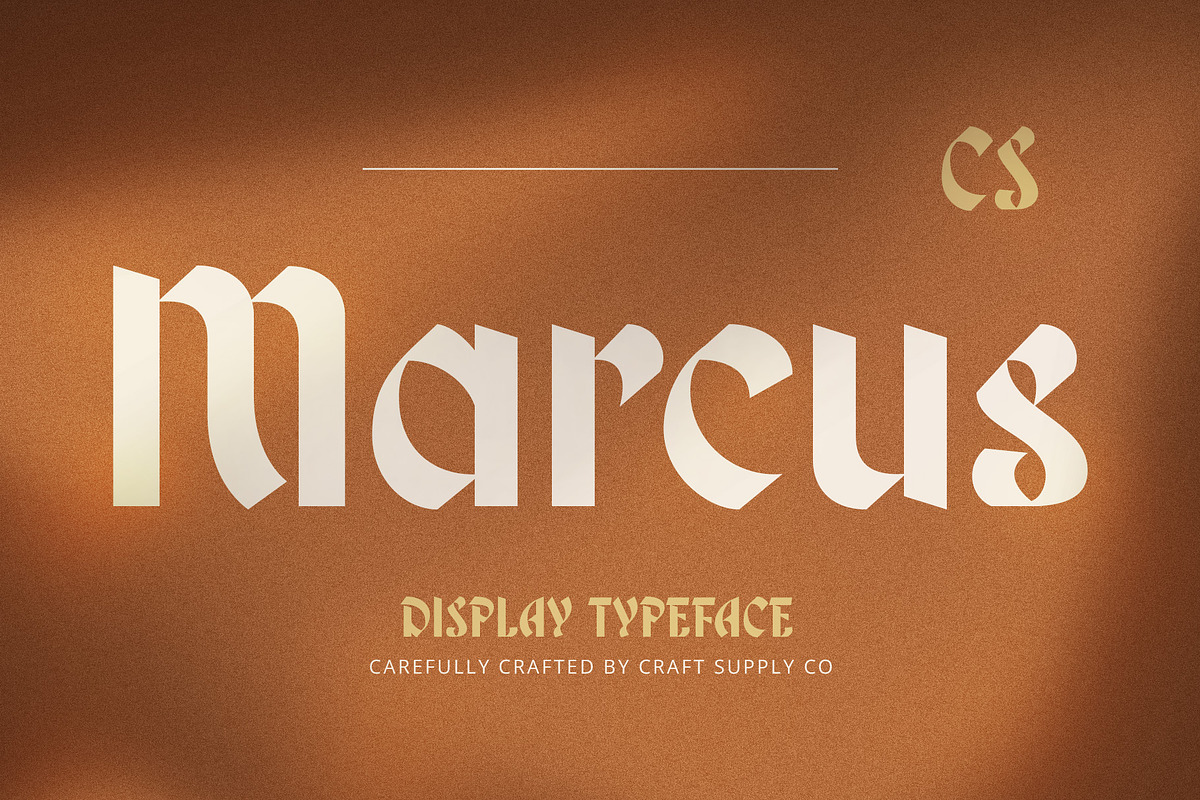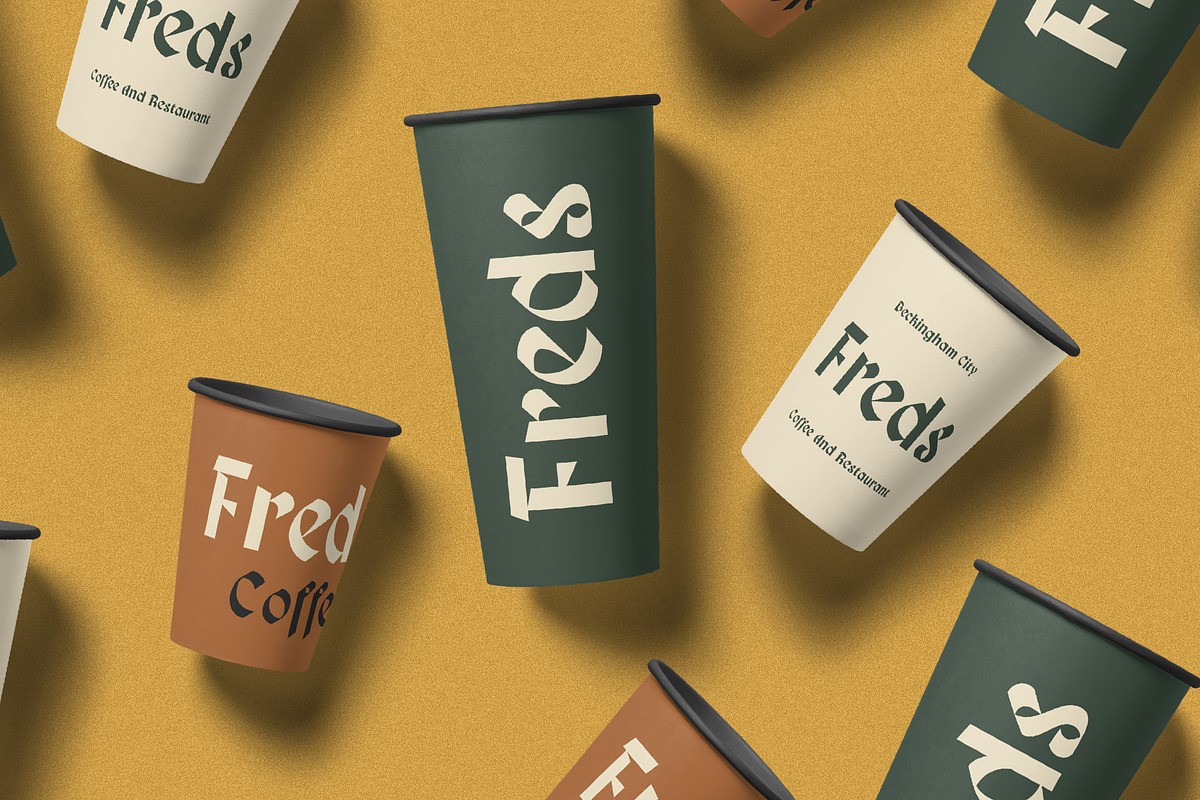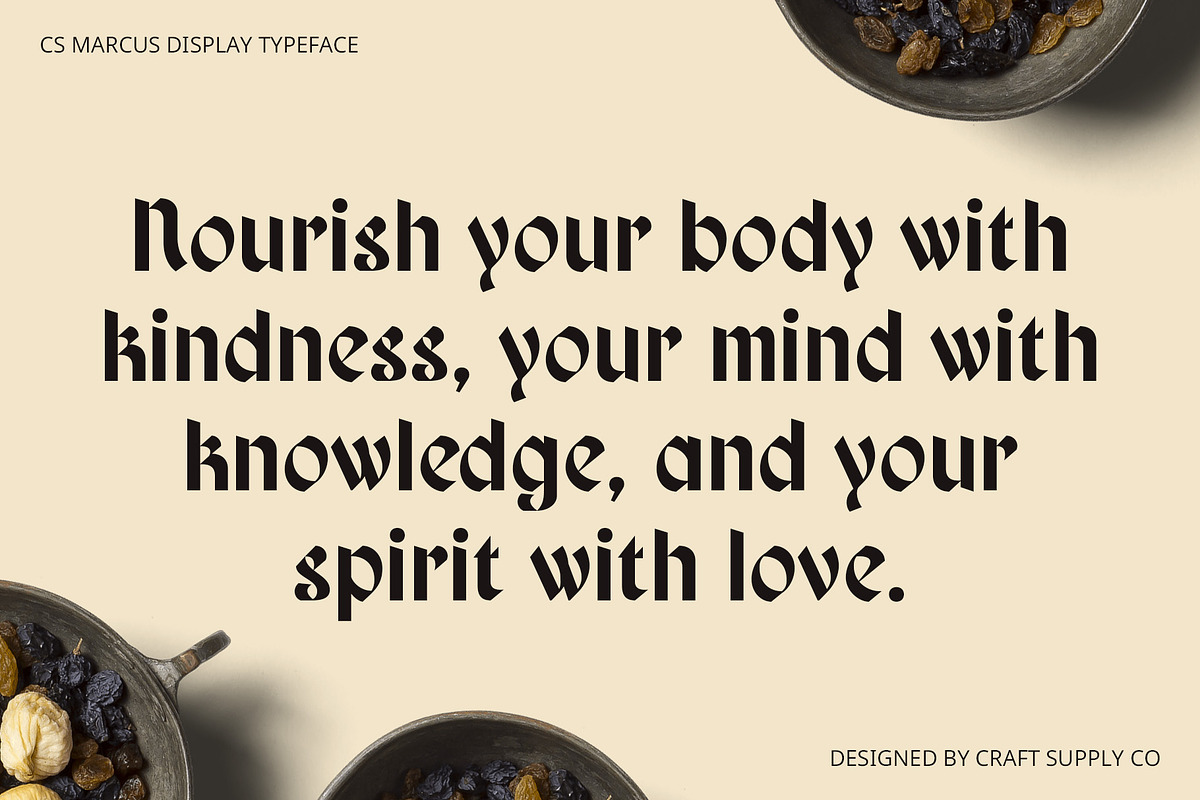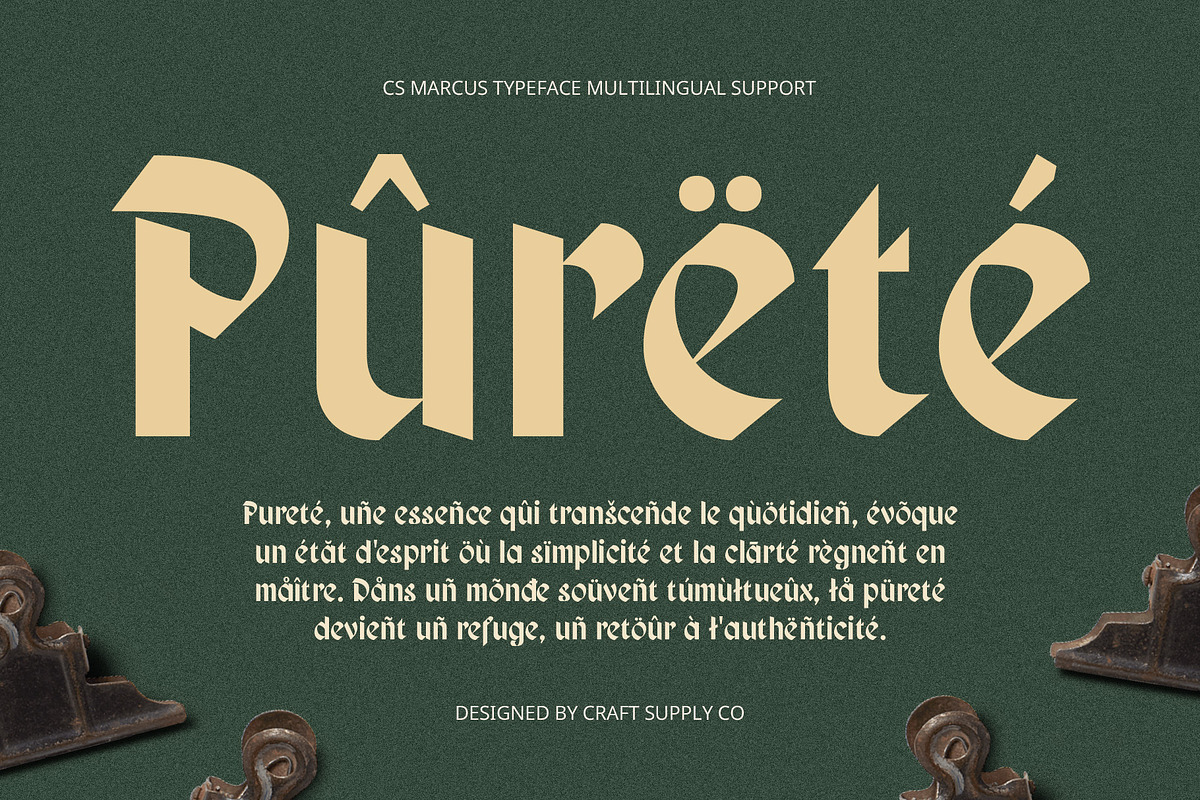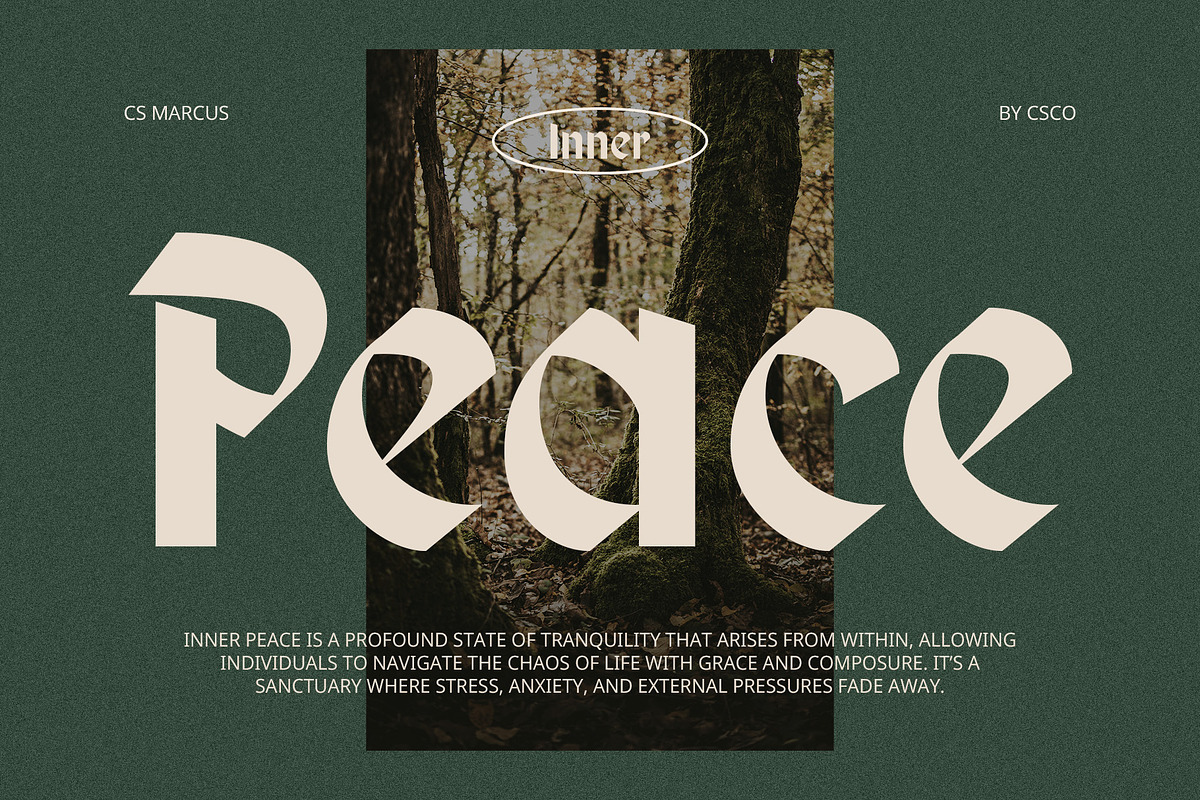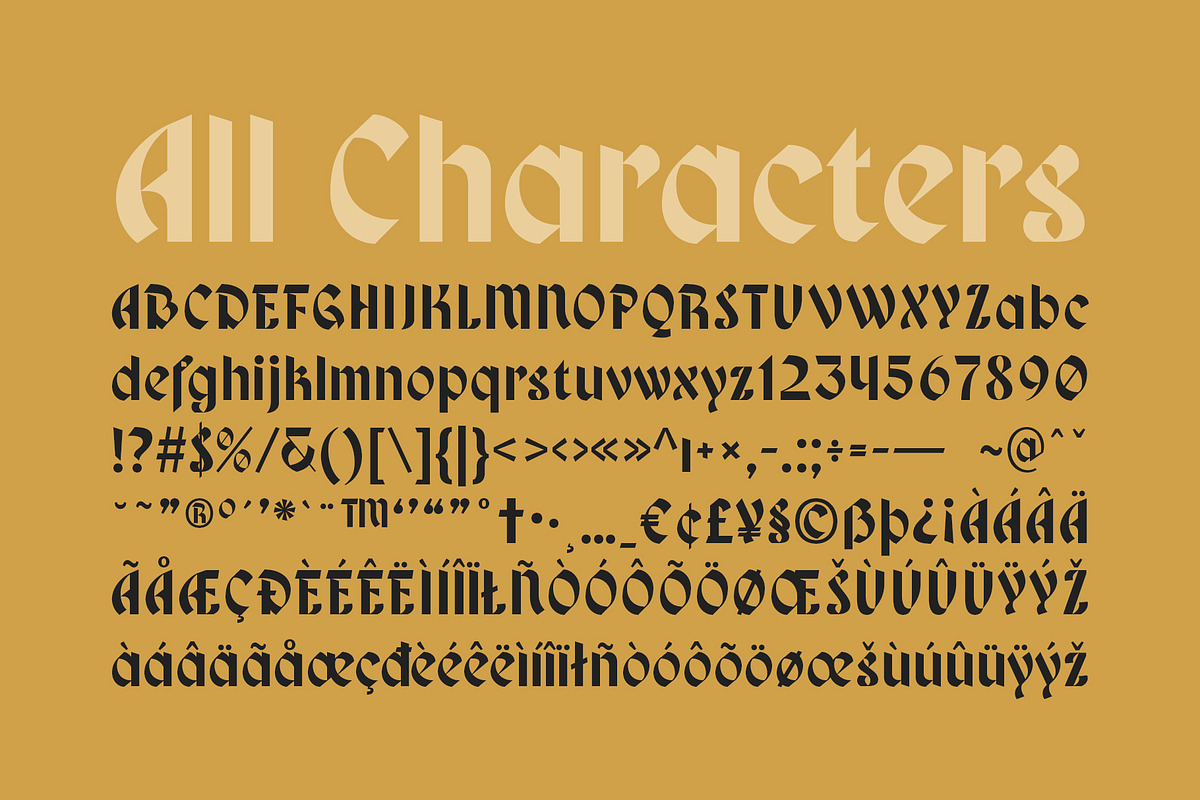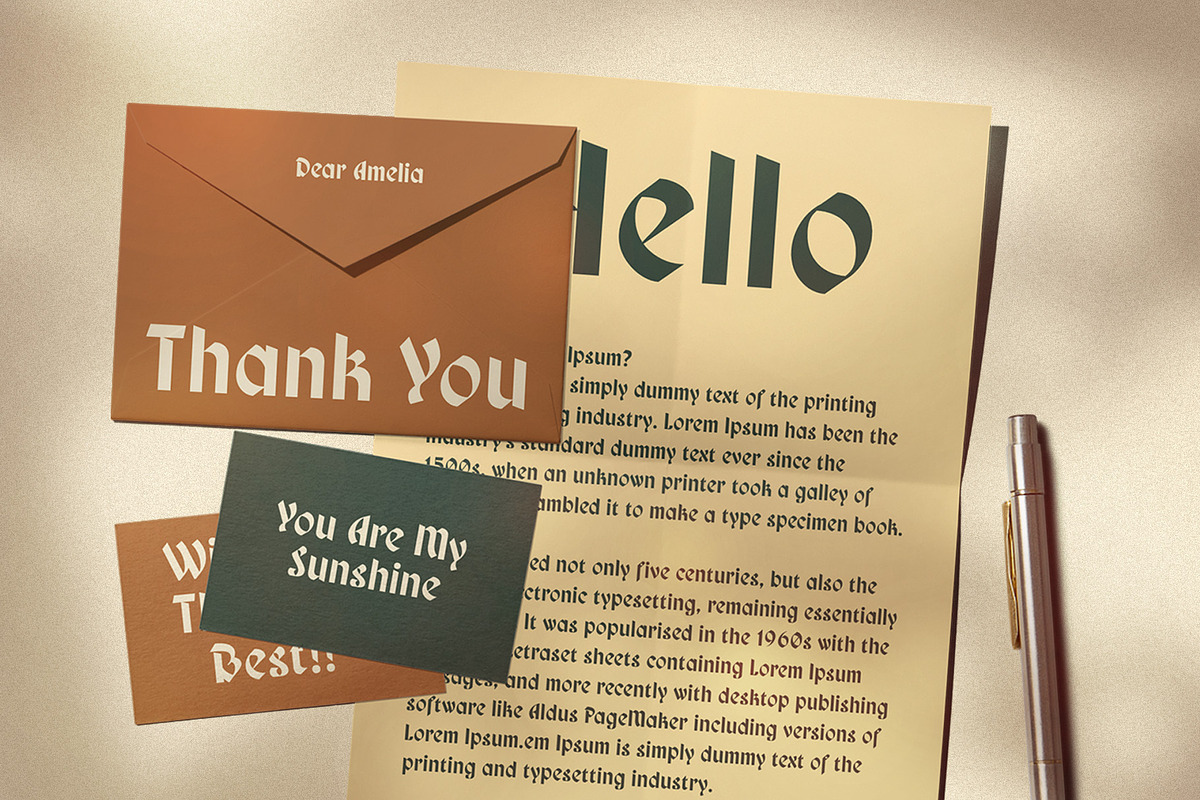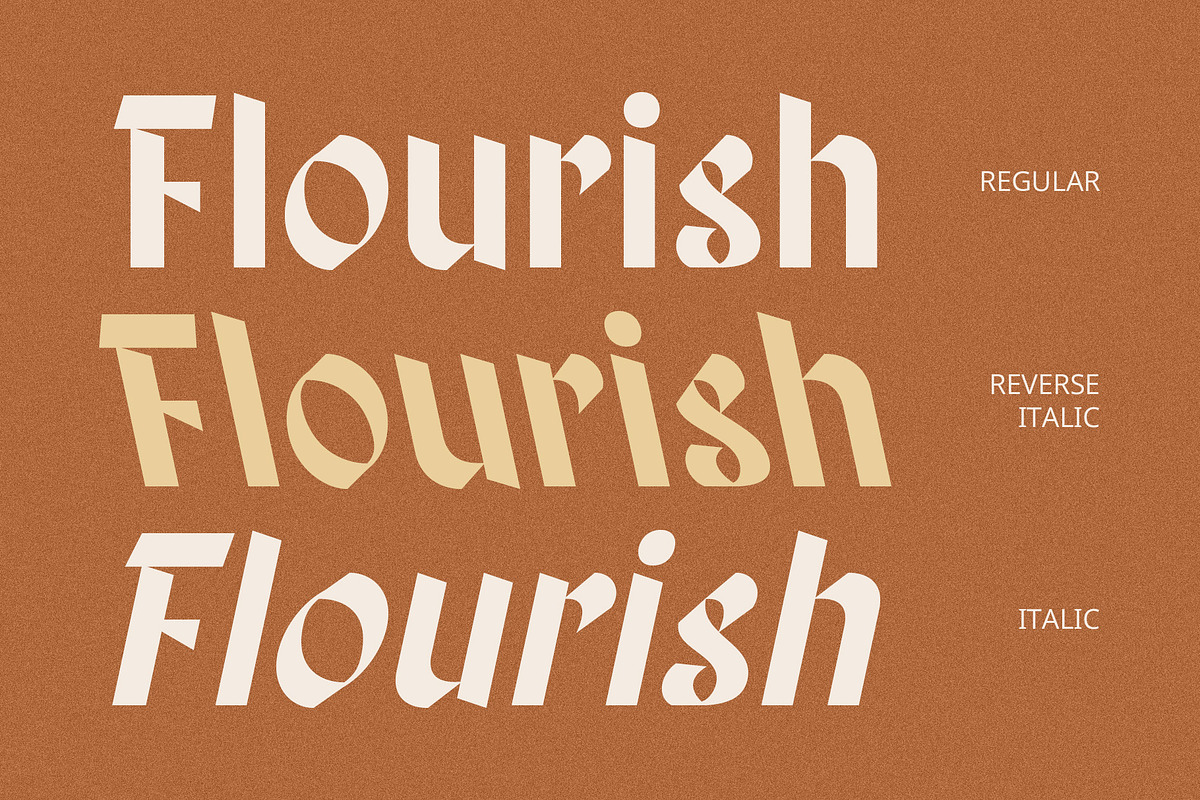
CS Marcus – Blackletter Font
CS Marcus – Blackletter Font: A Timeless Expression of Strength and Tradition
Classic Blackletter with Medieval Inspiration CS Marcus is a bold blackletter display font that draws inspiration from medieval calligraphy, bringing a sense of history and authority to any design. Its sharp, angular letterforms and rigid vertical lines are reminiscent of ancient manuscripts, while its intricate ornamentation and bold structure create a distinctive and commanding presence. This font is ideal for designs that seek to evoke a sense of prestige, formality, or historical depth.
Intricate and Ornate Letterforms The highly structured letterforms of CS Marcus are a hallmark of the blackletter style, featuring sharp angles and vertical strokes that convey strength and tradition. The careful detail in the design adds a sense of artistry and craftsmanship, elevating any project with its noble appearance. The ornate nature of the font reflects the rich legacy of blackletter typography, making it a powerful choice for designs that require a touch of grandeur and historical significance.
Perfect for Formal and Historic Designs CS Marcus is well-suited for formal designs, such as invitations, official documents, or certificates, where an air of authority and timeless elegance is needed. Its historical roots make it a perfect match for projects that aim to evoke a medieval or gothic feel, bringing a sense of antiquity and importance to the forefront.
- CS Marcus Regular
- CS Marcus Italic
- CS Marcus Reverse Italic